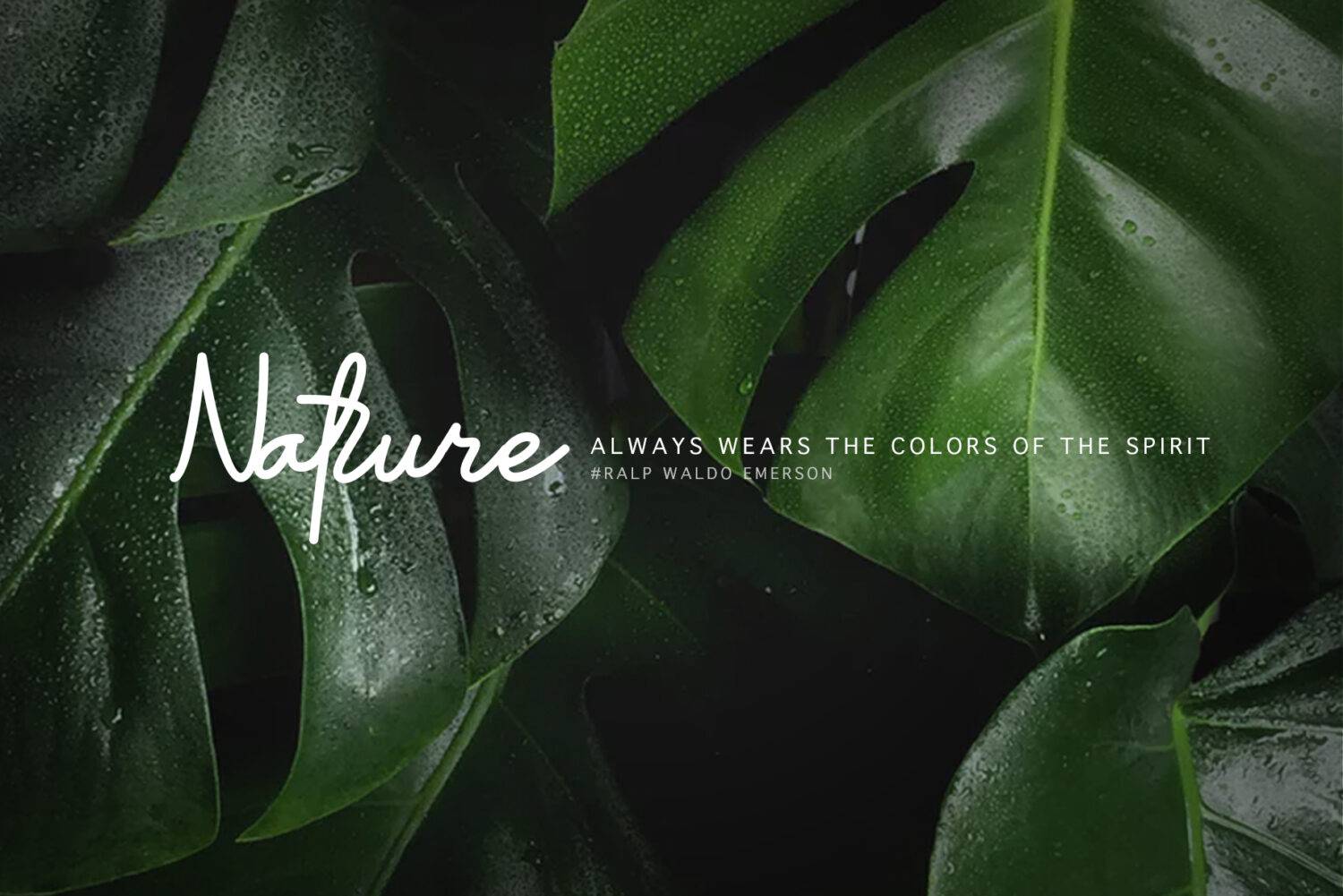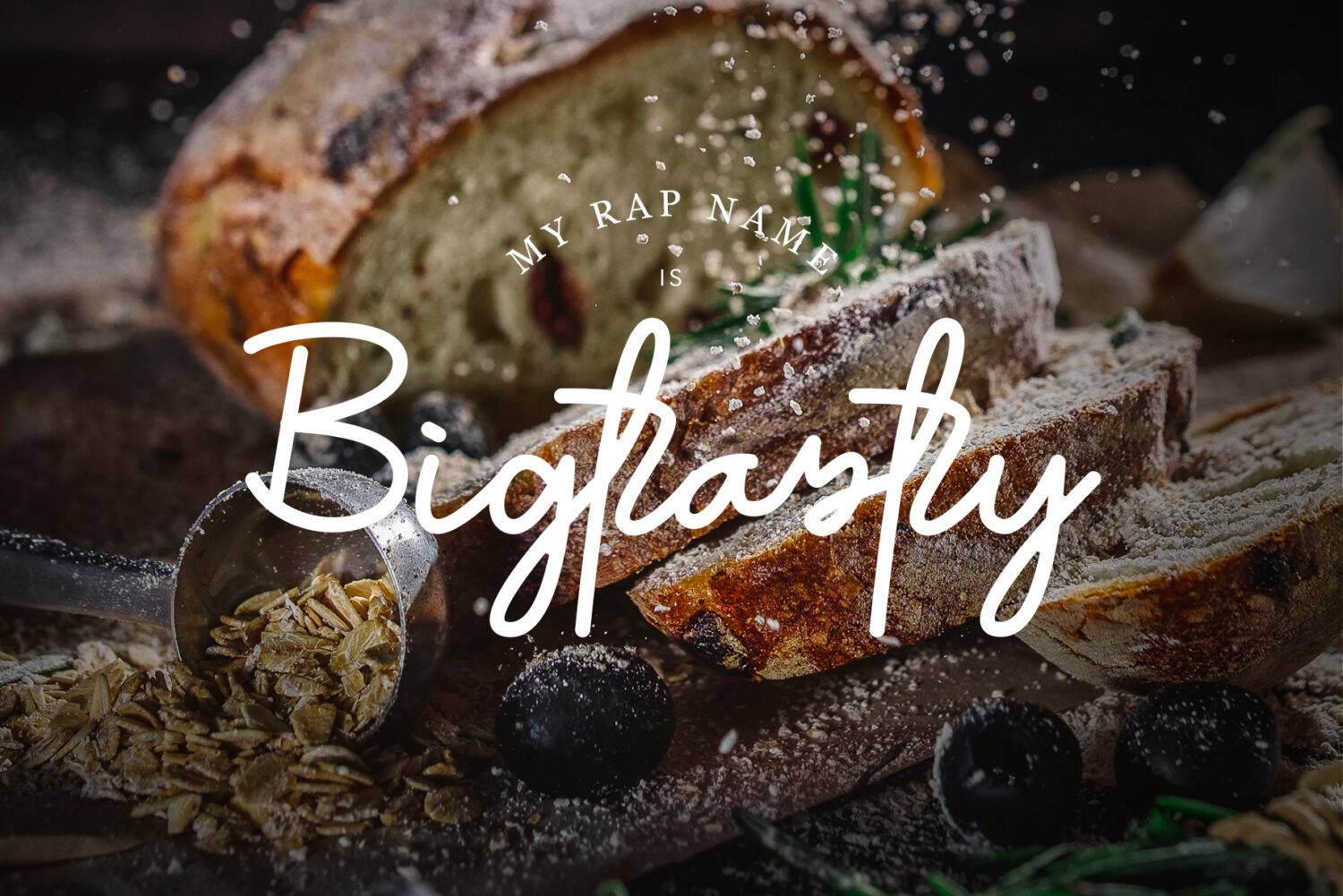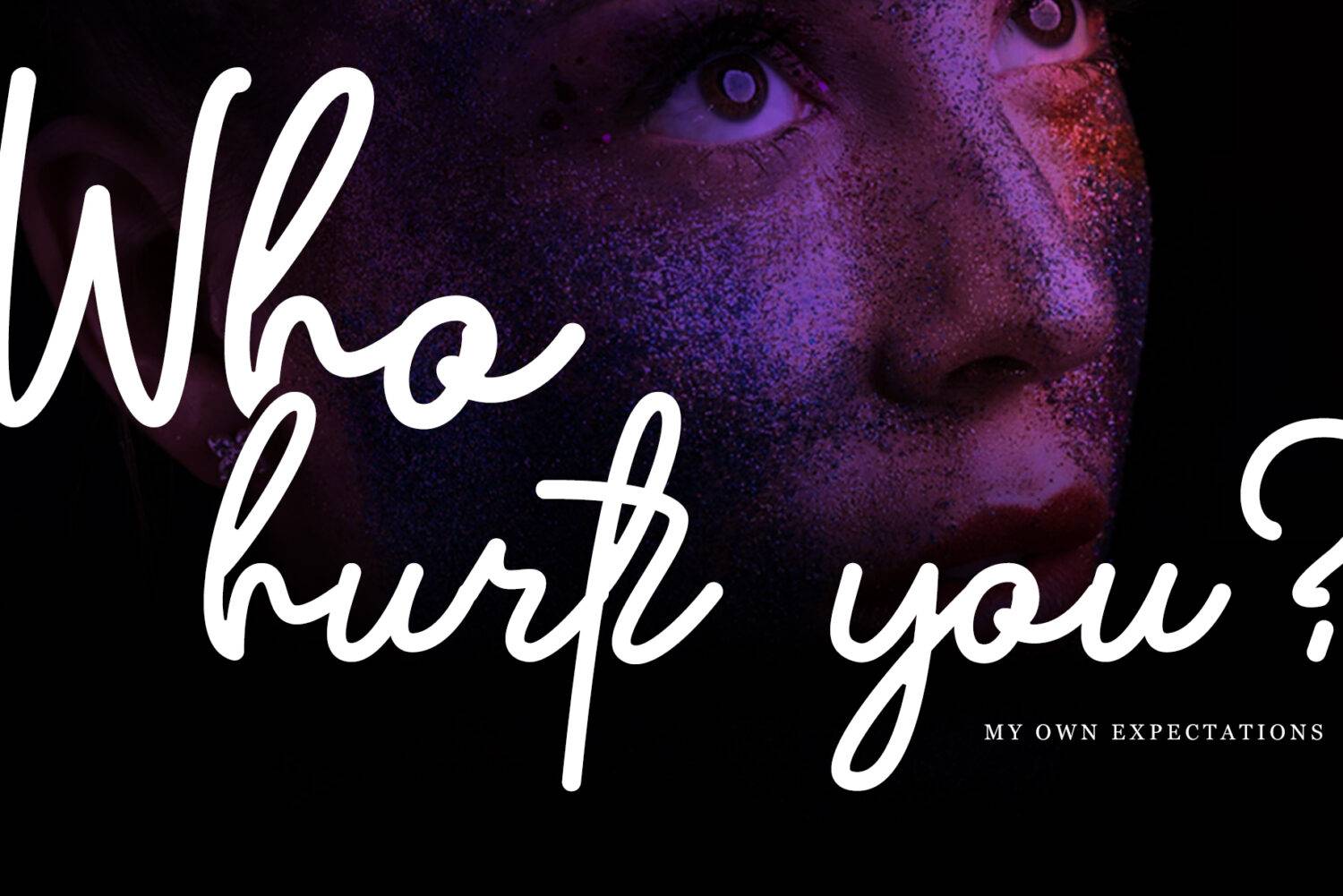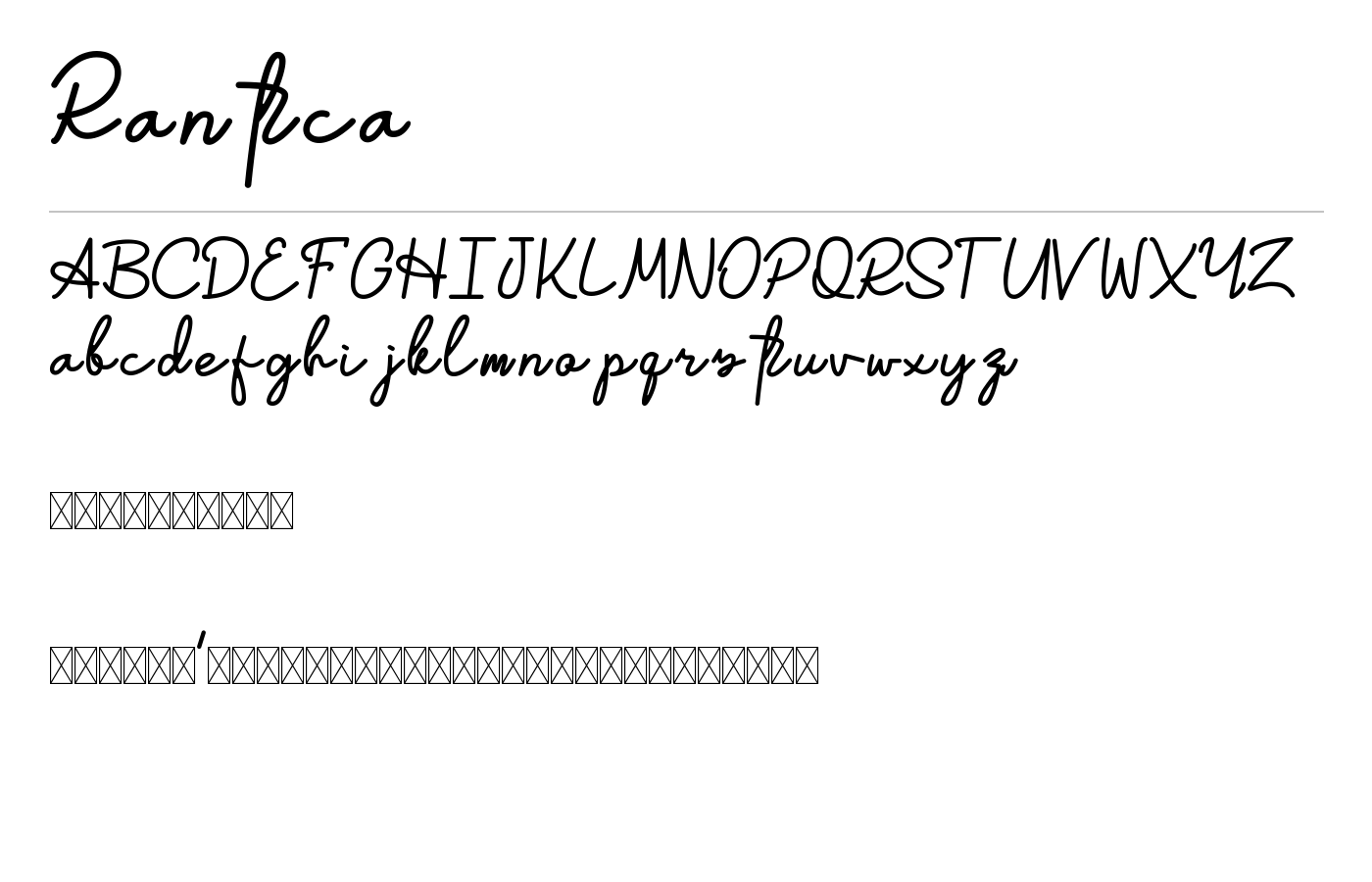
Rantca is a casual script font featuring elegant, smooth strokes with a friendly, handwritten feel. Its tall, narrow letterforms and subtle ligatures give it a modern yet personal touch, making it ideal for creative branding, invitations, and stylish headlines that require a warm, approachable vibe. This font works well where a blend of sophistication and informality is desired.
Rantca Font
About Rantca Font
| Font family | Rantca Font |
| Designer | Aidil Muladha |